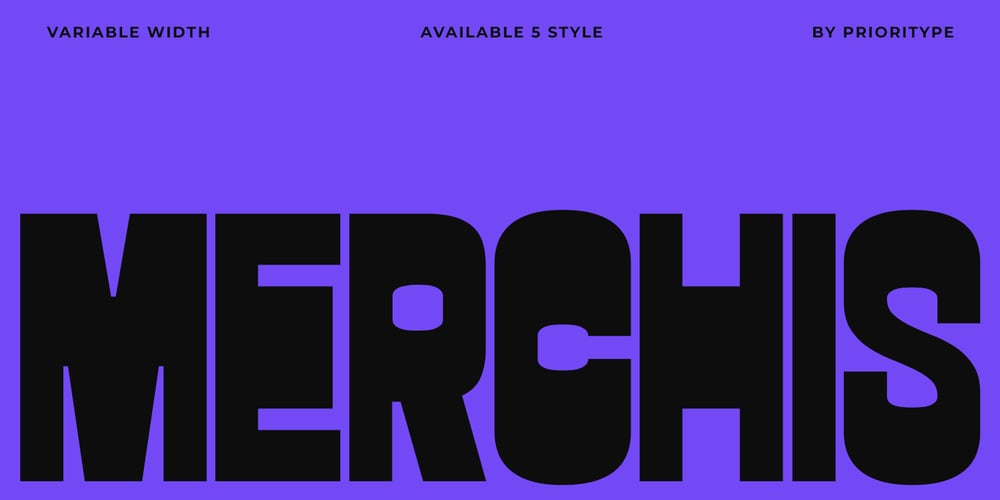
PC Merchis Font Family was designed by Prio Nurokhim Aji and published by Prioritype. PC Merchis contains 6 styles and family package options. PC Merchis – Modern Brutalism FontPC Merchis is a bold display font designed for posters with a strong, impactful presence. Featuring five widths (Condensed to Expanded), it offers versatility to create striking visuals that are both fierce and stylish. Whether for branding, headlines, or statement designs, PC Merchis ensures your typography stands out with power and character. Features: Uppercase, Lowercase, Numeral, Punctuation & Multilingual. Multilingual contained: Afrikaans, Albanian, Asu, Basque, Bemba, Bena, Breton, Catalan, Chiga, Cornish, Danish, Dutch, English, Estonian, Filipino, Finnish, French, Friulian, Galician, German, Gusii, Indonesian, Irish, Italian, Kabuverdianu, Kalenjin, Kinyarwanda, Luo, Luxembourgish, Luyia, Machame, Makhuwa-Meetto, Makonde, Malagasy, Manx, Morisyen, North Ndebele, Norwegian Bokmål, Norwegian Nynorsk, Nyankole, Oromo, Portuguese, Quechua, Romansh, Rombo, Rundi, Rwa, Samburu, Sango, Sangu, Scottish Gaelic, Sena, Shambala, Shona, Soga, Somali, Spanish, Swahili, Swedish, Swiss German, Taita, Teso, Uzbek (Latin), Volapük, Vunjo, Zulu. For any questions please contact me 🙂Thanks!